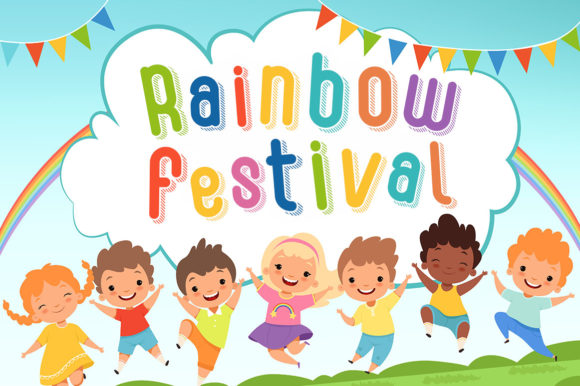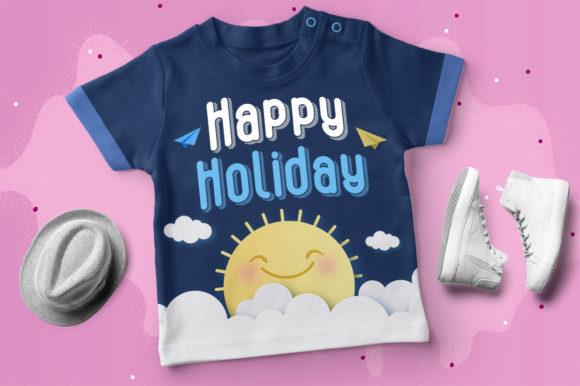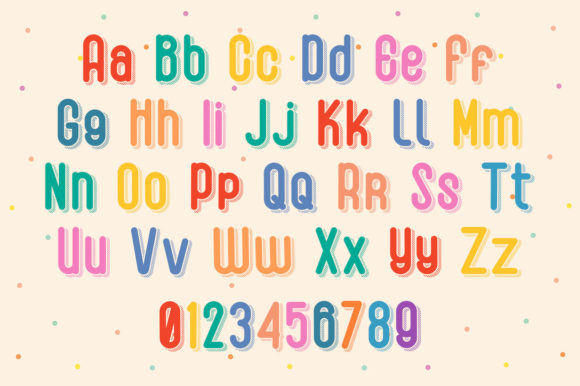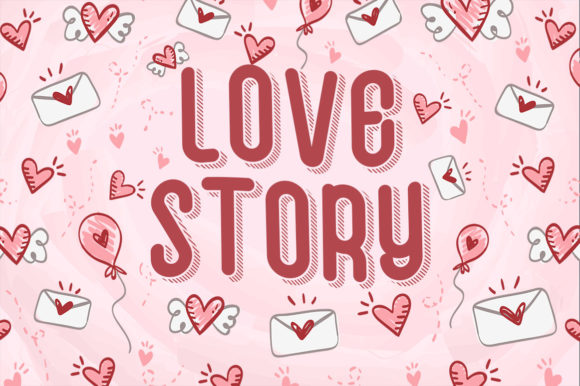
Enter the Honey Duck Font – a whimsical display font that captures the essence of fun, quirkiness, and authenticity. This enchanting typeface is designed to elevate your creative ideas and turn them into true showstoppers. Whether you’re a seasoned designer or a budding artist, Honey Duck Font is the perfect companion for your next project.
What sets Honey Duck Font apart is its ability to add a touch of personality to your work. With its unique charm, it’s the perfect tool for designers who want to stand out from the crowd and leave a lasting impression.
Honey Duck Font Key Features
- Size and Resolution: The font is available in 1 style and 1 weight, with a size of 512 glyphs, making it suitable for various design applications.
- Unique Characteristics: The Honey Duck Font features a unique blend of modern and vintage elements, with intricate details and a soft, rounded feel that adds a touch of elegance to any design.
- Script and Language Support: The font supports a wide range of languages, including Latin, Cyrillic, and Greek scripts, making it an excellent choice for multilingual designs.
- Font Metrics and Kerning: The font has carefully crafted font metrics and kerning, ensuring that the text flows smoothly and looks professional, even at small font sizes.
Honey Duck Font Review
I recently had the chance to work with the Honey Duck Font, and I must say it’s a unique and charming addition to any design project. ✨ One of the things that really stood out to me is the font’s versatility – it can work well in a variety of contexts, from playful children’s books to elegant branding materials.
Another aspect that I appreciate about Honey Duck is its excellent legibility. ✨ Even at smaller font sizes, the letters remain clear and easy to read, which is essential for effective communication.
While Honey Duck is a solid font, there are a few areas where it falls short.
- ⚠️ Limited character set: The font doesn’t support a wide range of special characters or accents, which can be a challenge when working with international content.
- ⚠️ Limited font sizes: Honey Duck starts to look a bit rough at very large font sizes, which can be a problem for titles or headings.
Overall, I’m impressed with the Honey Duck Font. While it has some limitations, its unique style and excellent legibility make it a great choice for designers looking for something a little different. With a bit of creative workarounds, I think Honey Duck can be a fantastic addition to any design project.
Honey Duck Font Practical Application Guide
For the most out of Honey Duck Font, use it for:
– Watercolor or hand-painted designs
– Whimsical and playful branding
– Children’s book illustrations
– Artistic quotes and posters
Alternatives to Honey Duck Font for Designers
Great Vibes Font is a beautiful, handwritten font that is perfect for adding a touch of elegance to your designs. It’s ideal for use in wedding invitations, quotes, and other creative projects where you want to add a personal touch. Compared to Honey Duck Font, Great Vibes Font has a more refined and sophisticated feel, making it suitable for more formal designs.
Pacifico Font is a elegant, cursive font that is great for use in headings, titles, and other display text. It’s perfect for adding a touch of sophistication to your designs and works well in a variety of contexts, from logos to advertisements. Compared to Honey Duck Font, Pacifico Font has a more polished and refined feel, making it suitable for a wider range of design projects.
Q: What is the recommended font size for the Honey Duck Font?
The recommended font size for the Honey Duck Font is between 12pt and 24pt. This range provides optimal readability and visual impact for most applications. However, you can experiment with different font sizes to achieve the desired effect for your specific project.